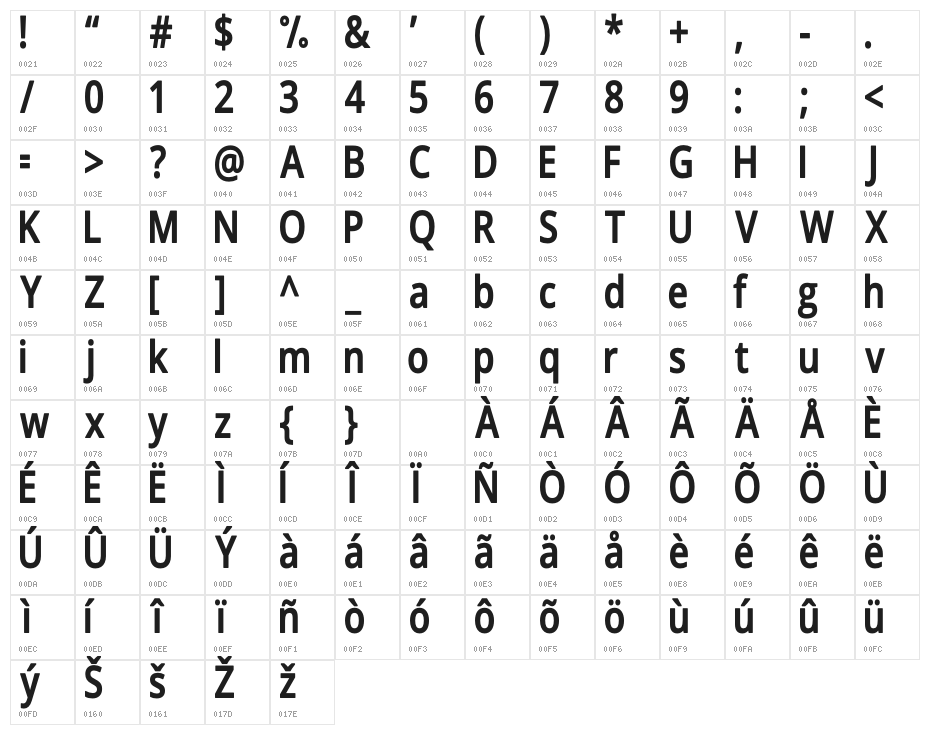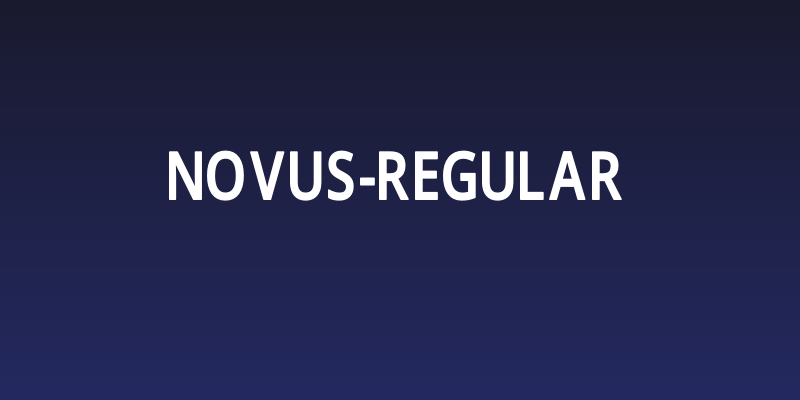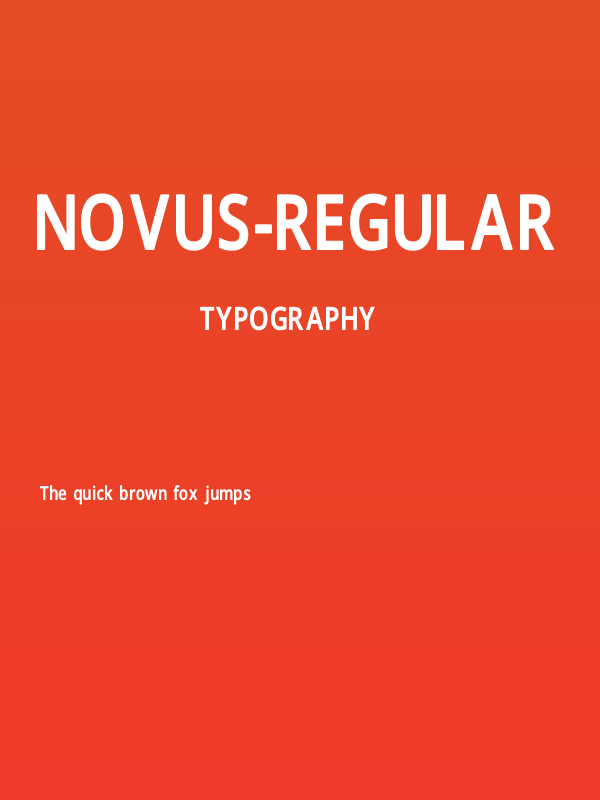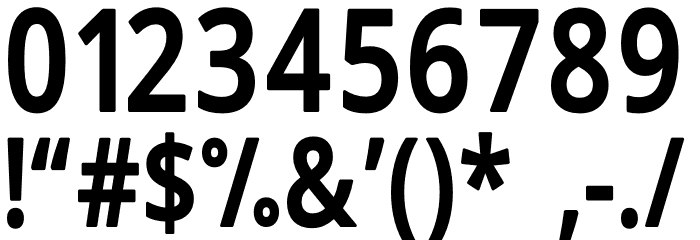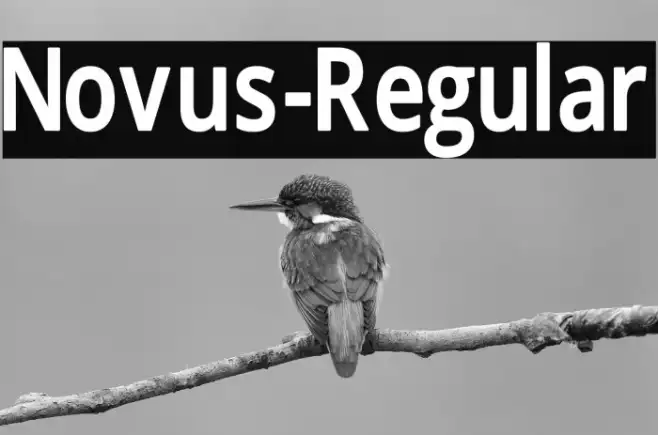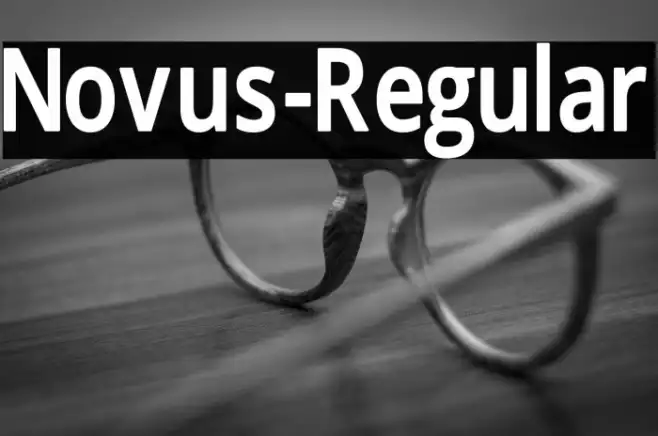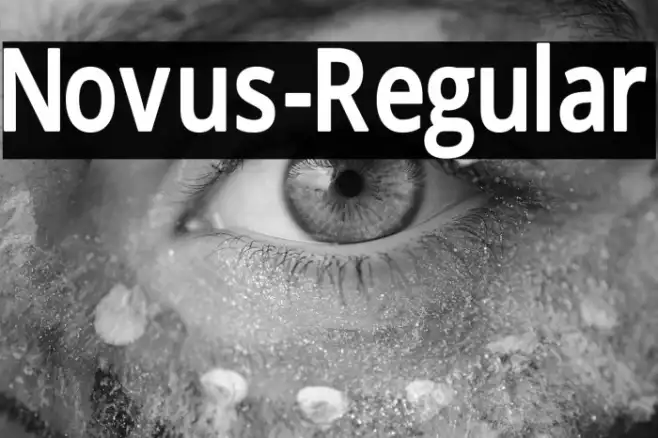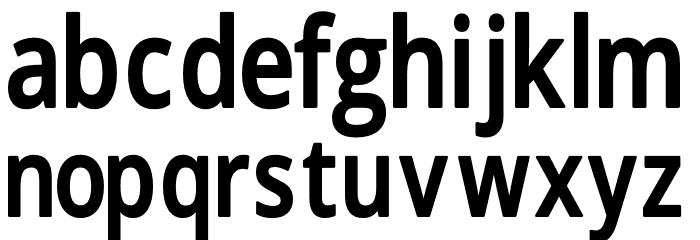
Novus-Regular Font
Novus-Regular Description
This font features a clean and modern sans-serif design, characterized by its straightforward and geometric letterforms. The uppercase letters are bold and uniform, providing a strong presence, while the lowercase letters maintain a consistent height and width, ensuring readability. The numerals are clear and distinct, making them suitable for various applications. Special characters are well-defined, adding versatility to the font's usage. The overall appearance is balanced and professional, making it ideal for both digital and print media.
| Proposed Projects | Ideal for corporate branding, website headers, digital interfaces, and print materials such as brochures and flyers. |